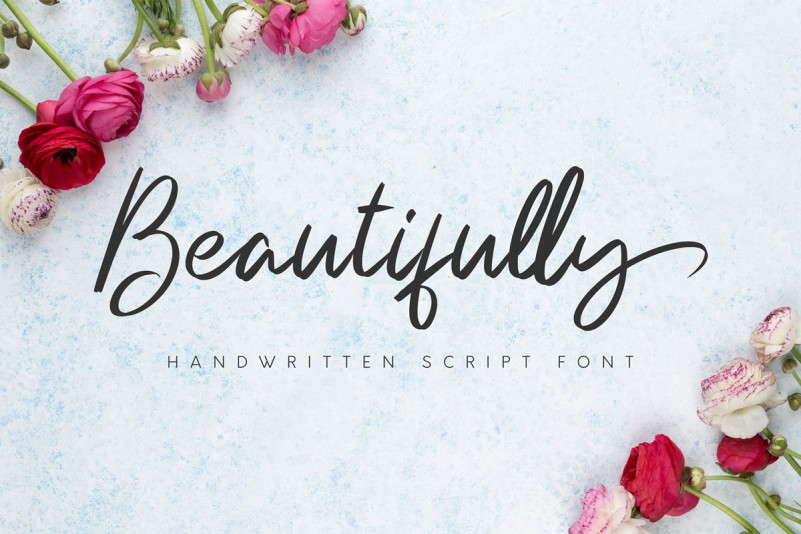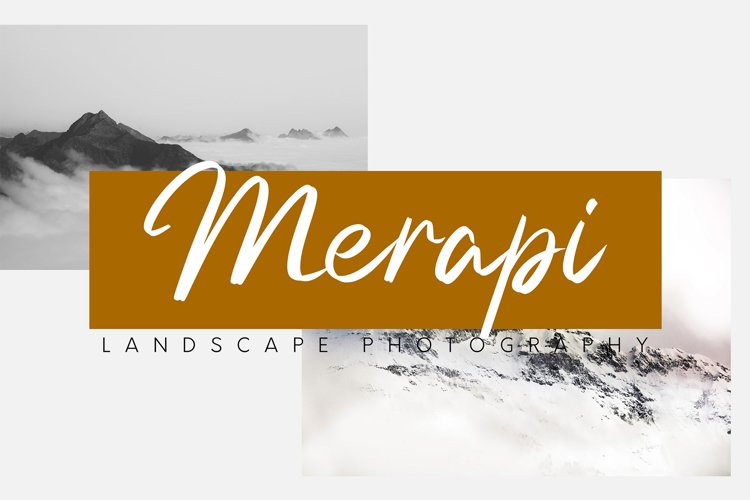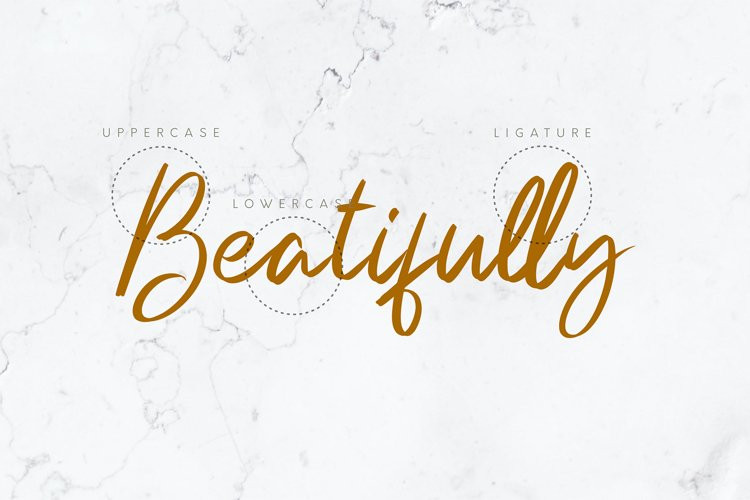
Beautifully Font
Beautifully! A handbrush script font style. Beautifully font is suitable for branding, logotype, apparel, T-shirt, Hoodie, product packaging, quotes, flyer, poster, advertising, etc.